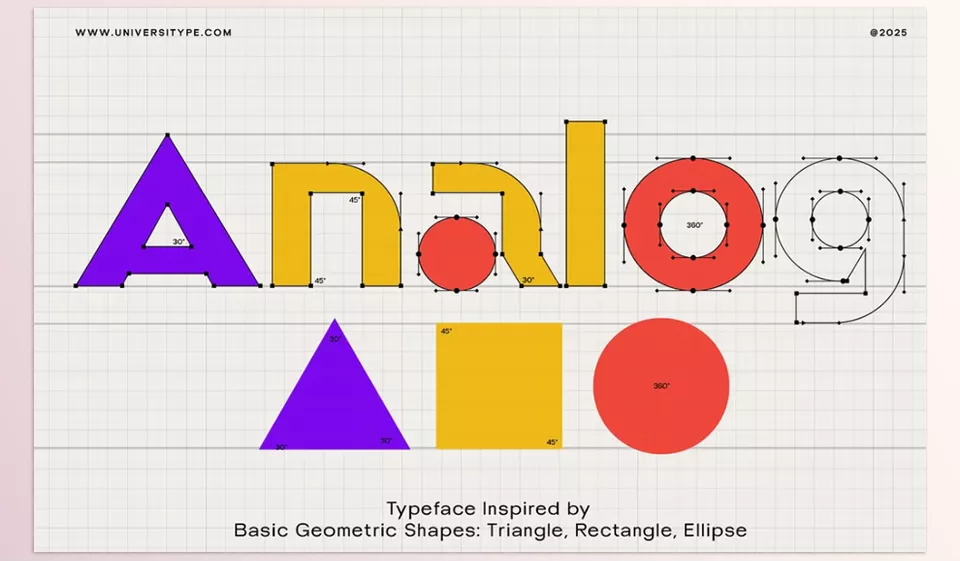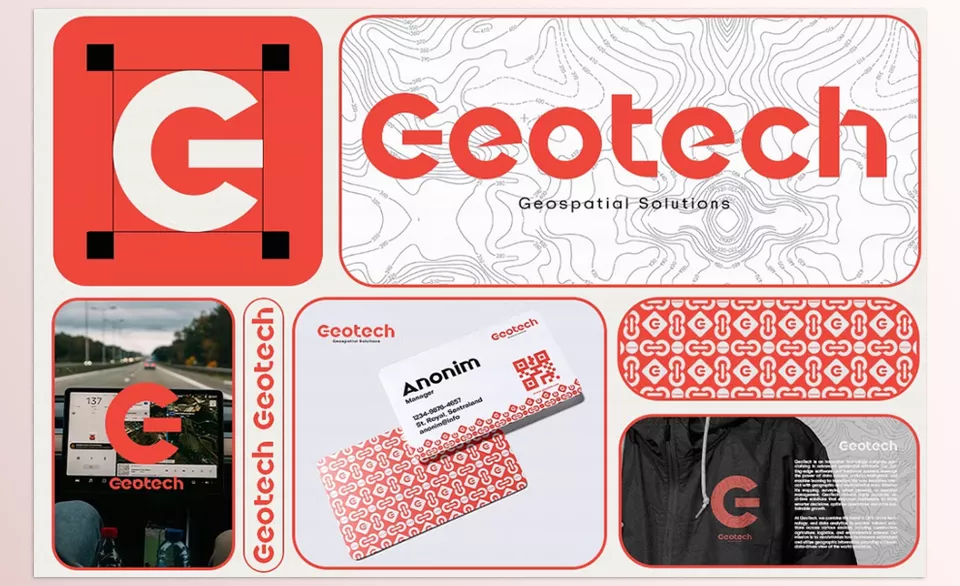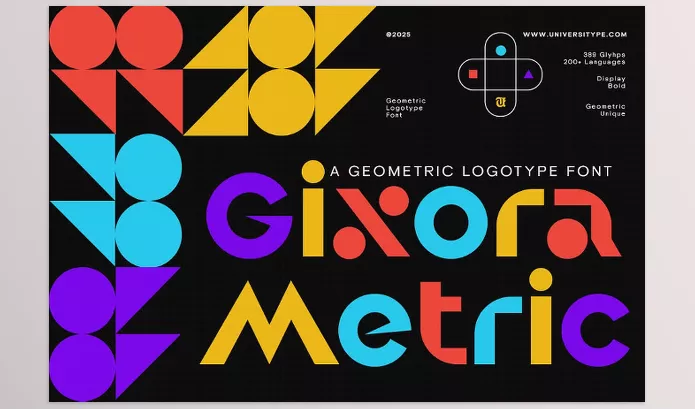
Creative Market – UT Gixora Metric A Geometric Font is a contemporary geometric sans serif font that was created with attention to Bauhaus design. This typeface prepares to meet the needs of designers, bringing geometry together with circles, triangles, and rectangles.
- Bold weight: to exaggerate appearing thick and feathery and cause text to pop and be visually appealing.
- Geometric structure: formed from simple shapes while giving styles that are clean and modern.
- Multilingual support: facilitates communication in over 100 languages globally.
- Large glyph set: allowing flexibility in creating diverse designs, 389 glyphs are provided.
- Logotype-ready: optimal for large brands and logo marks.
- Versatile usage: distinguished in web and print designs, posters, titles, and more.
- Creative inspiration: drawn from Bauhaus and other Modernist design principles.
Image 1: Clean, sharp, and made to stand out in bold branding environments.
Image 2: Where geometry meets style—perfect for making a visual impact.